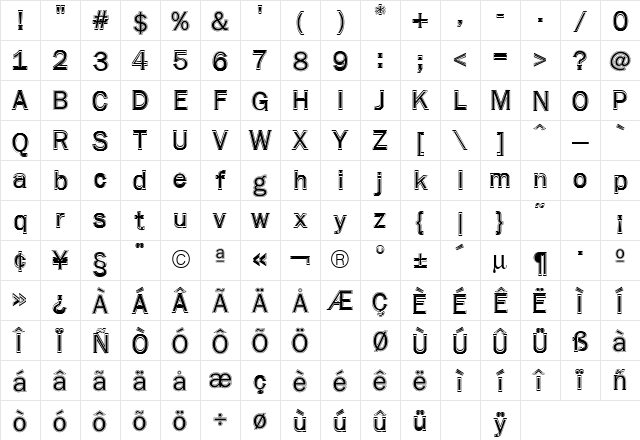
Franklin Gothic Contour takes a clean, functional approach - its unadorned letterforms prioritise legibility and work reliably across screen and print environments.
Font Pairing: Works well alongside a characterful serif or display font that can carry the expressive load while Franklin Gothic Contour handles the functional copy.
Pro Tip: Use Franklin Gothic Contour for UI labels, navigation, and short-form body copy where clean legibility is the priority.